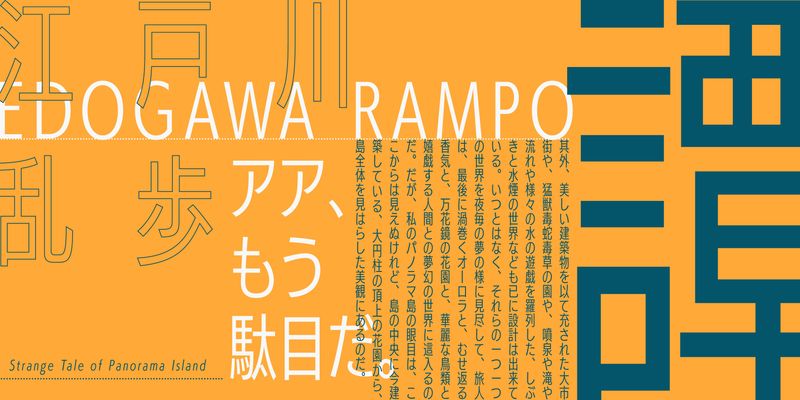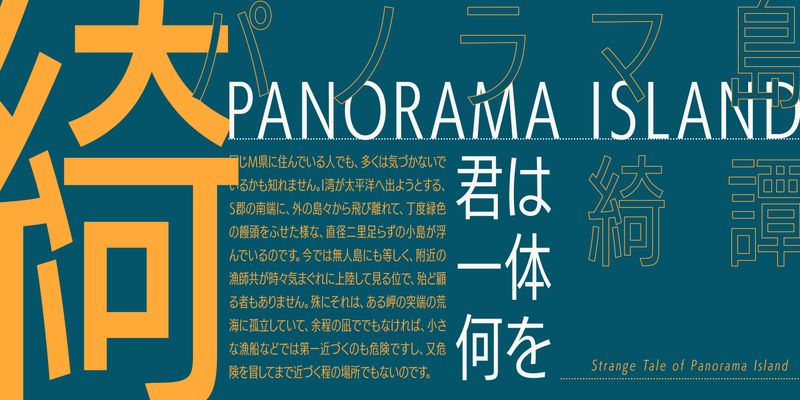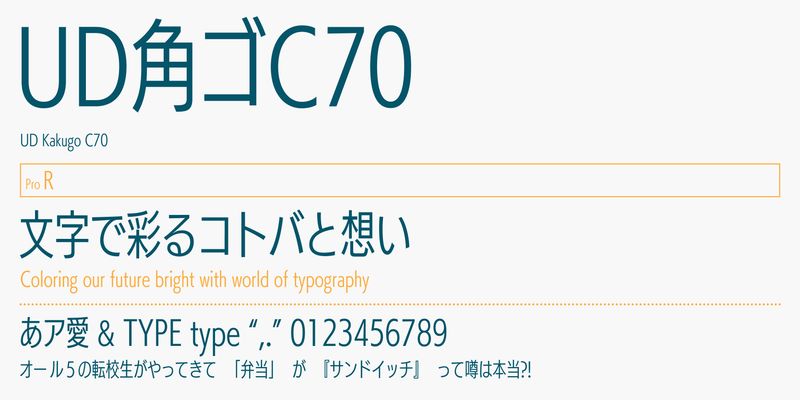
In order to display a large amount of information legibly and beautifully in a limited space, this typeface is designed at 70% of the width of UDKakugo_Large. It can be used effectively to display captions and explanatory notes in smaller sizes.